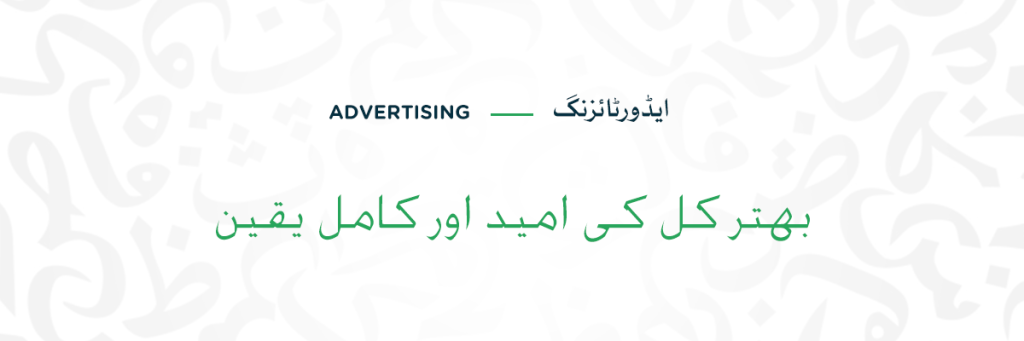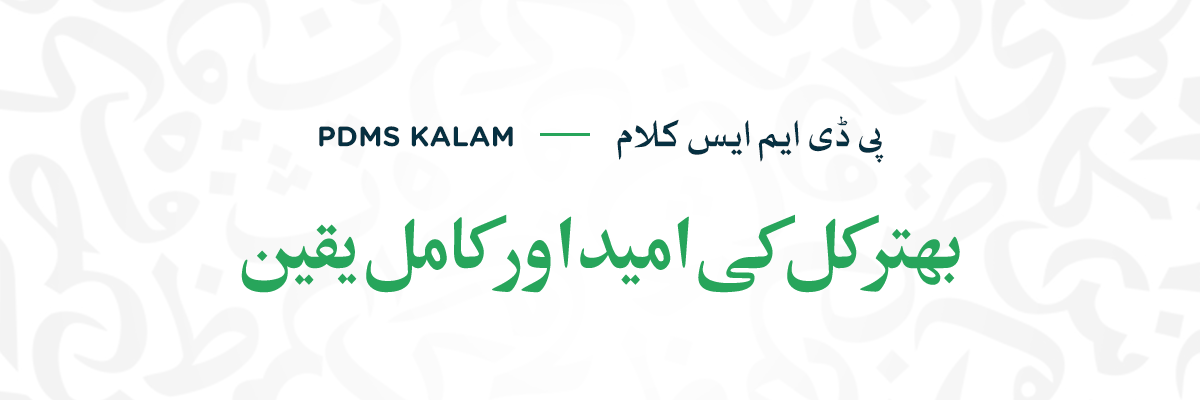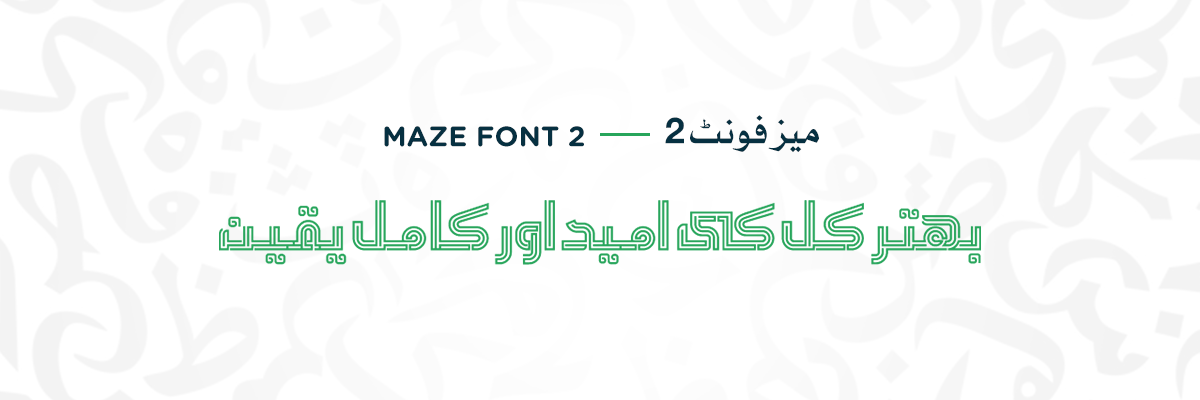
Here we have enlisted the top 10 Urdu fonts for designing eye-catching panaflex banners
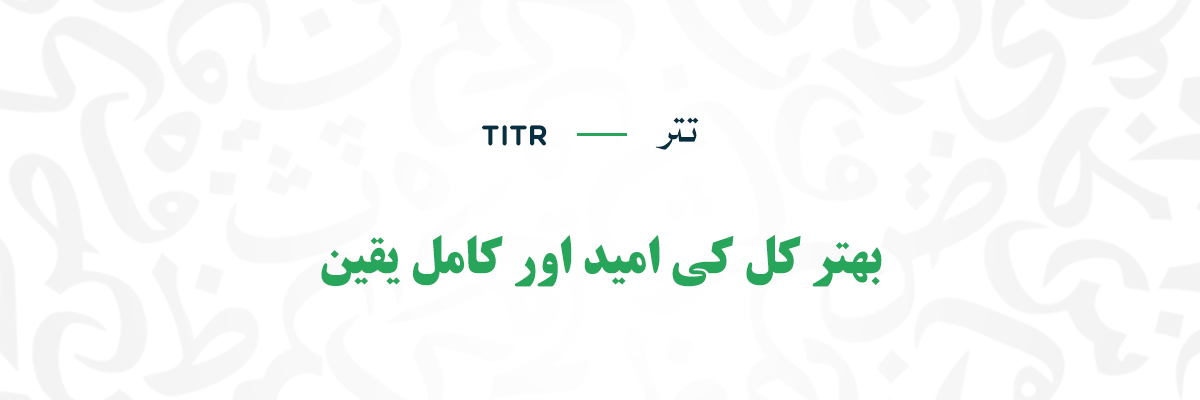
Titr font has clean, bold, and modern appearance. It is highly readable from a distance and is a popular choice in Urdu design. The structure of Titr is straightforward, with strong and thick strokes that give it a powerful look. The letters are evenly spaces and makes text smooth and pleasant. This font is available in two weights including regular and bold. Titr, being a geometric and sans-serif font has 458 number of glyphs and character set of 764. All these factors showcase its versatility. You can use it for advertising special events, panaflex banners, and more where readability and emphasis are essential.
| Font Family | Titr |
| Font Developer | Kostas Bartsokas |
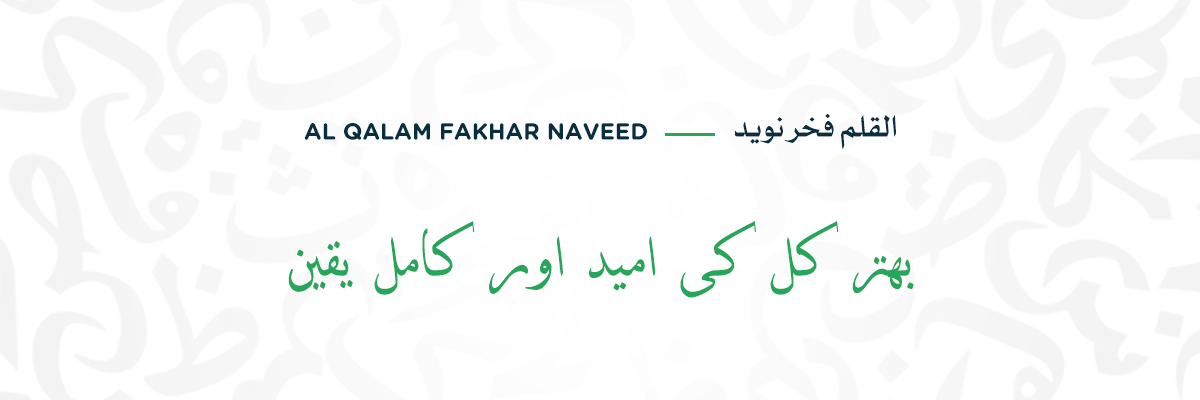
The Al Qalam Fakhar Naveed font is a beautifully crafted Urdu font that is widely appreciated in design. This font has a traditional and elegant look. It captures the beauty of Urdu calligraphy while ensuring readability, even at larger sizes. Each well-proportioned letter in this font is designed to flow gracefully. This modern and flowy Nastaleeq font has lesser number of embellishments, that creates a balanced look. This combination of elegance and clarity gives the font a timeless look. Al Qalam Fakhar Naveed has 334 number of glyphs in total, that can be customized to give font a balanced look, making it suitable for formal and cultural designs.
| Font Family | AlQalam Fakhar Naveed |
| Font Developer | Syed Shakir Ul Qadree |
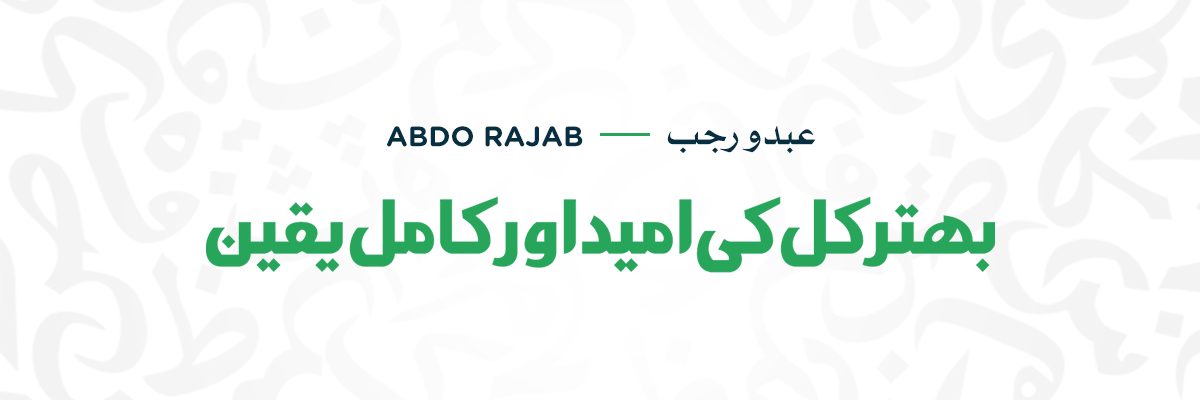
The Abdo Rajab Arabic typeface has a bold and impactful appearance that can grab attention effectively. It is modern as well as traditional at the same time. Available in 3 different weights, including bold, black, and light, it has 315 number of glyphs. Abdo Rajab has thick, bold, geometric, and modern letters that make it visually strong and easy to read. The font weights and styles emphasize clarity, that gives it a modern but traditional look. The letters have distinct shapes, making each word standout without losing readability. Its design makes it ideal for banners that are meant to deliver a message powerfully and confidently.
| Font Family | Abdo Rajab |
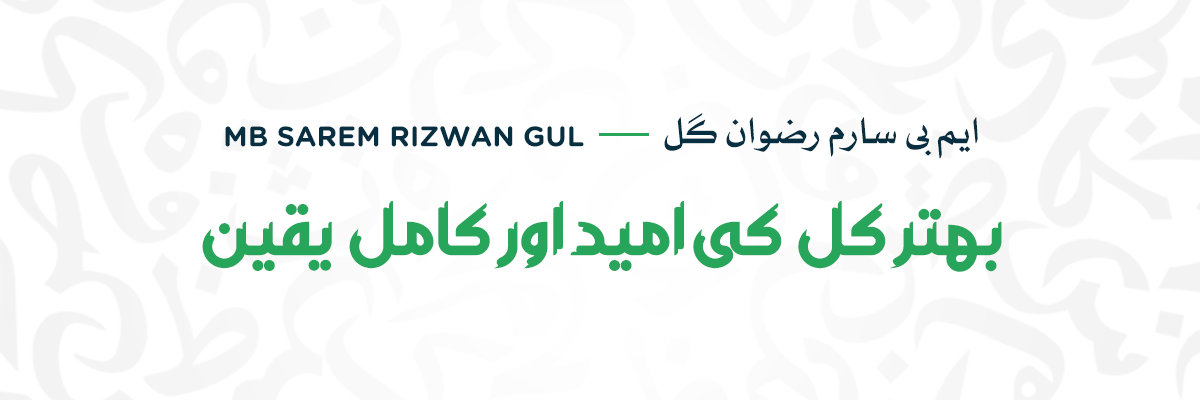
MD Sarim Rizwan Gul is a Sindhi font combines thick strokes with clear shapes that make the letters stand out effectively. It has a rounded and slightly decorative appearance, with thick and balanced letters that give the font a solid yet elegant look. Its ink style strokes and filled characters are readable, even from a distance. MB Sarim Rizwan Gul, being a cartoonish font has 612 number of glyphs and an extensive word count. is highly suited for panaflex banners due to its bold and prominent appearance. It ensures that the message on the banner is easily readable in crowded or open spaces. Its solid structure and bold design are well-suited for outdoor advertising.
| Font Family | MB Sarem Rizwan Gul |
| Font Developer | Sanaullah Mangnejo Sarem |
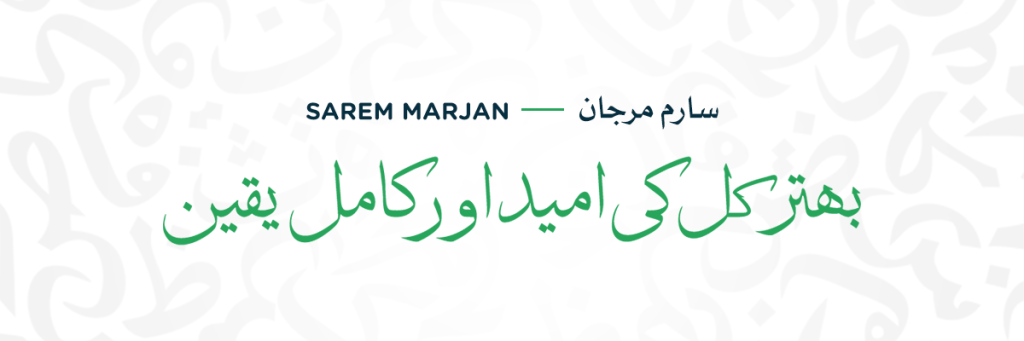
Samer Marjan is a monospaced and elegant Sindhi font that has slightly crisp edges. It has a unique flow to its characters with a softer and more traditional look. Sarem Marjan has a slender and slightly curved appearance. With the glyph count of 400, each character is designed with thin strokes that gives font a delicate and graceful look. The letters are spaced well, with a focus on flowing shapes that makes the text appear smooth and visually appealing. You can use it where a traditional and formal look is desired. Its traditional style also makes it stand out. It offers a unique look compared to more modern fonts, making it a great choice for projects that require an aesthetic connection to Urdu literature and culture.
| Font Family | Sarem Marjan |
| Font Developer | Ayesha Graphics |
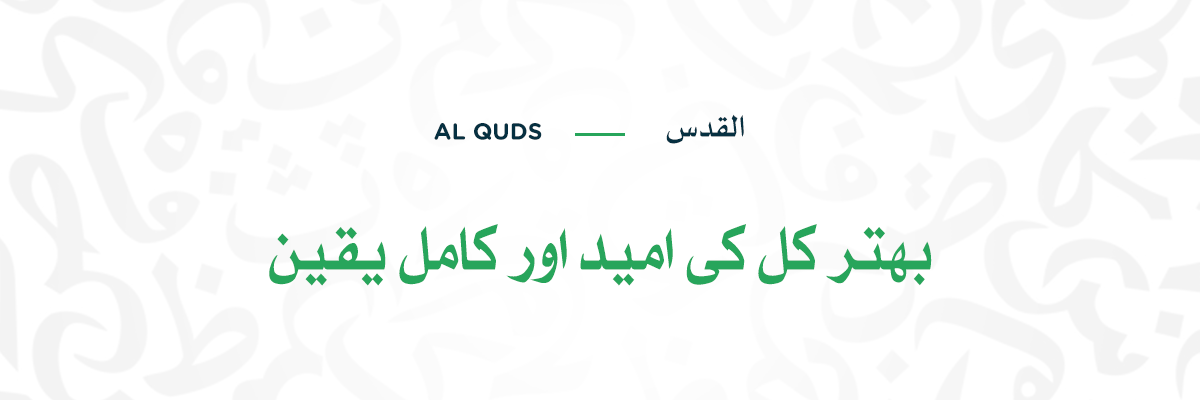
Al Quds is a beautiful and elegant Arabic font. It features graceful curves and intricate details. It gives a calligraphic feel to the visuals. The letters are well-proportioned and have a distinct personality. Each character has a unique shape and flow, which adds to its visual appeal. Al Quds is known for its sharp angles and straight lines. It creates a sense of strength and clarity. The letters are well-proportioned and have a consistent width. Al Quds’s modern interpretation of the Kufi style adds a contemporary touch to traditional Arabic typography. This makes it suitable for a wide range of design projects, from traditional Islamic art to modern branding and advertising. It has 456 glyphs and 537 number of characters.
| Font Family | AL Quds |
| Font Developer | ZakDesign |
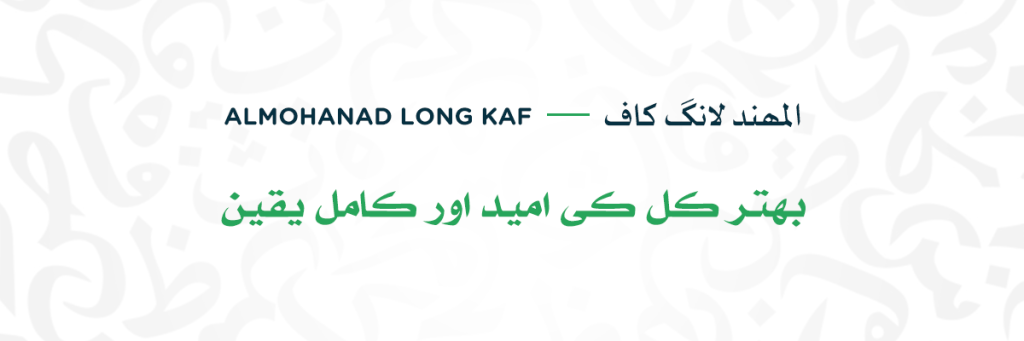
This font is characterized by its elongated “Kaf” letter, which is a distinctive feature of the Al Mohad family. The letters have a modern and geometric structure, with clean lines and sharp angles. The bold and clear forms of the font make it highly legible, even from a distance. The font’s modern and geometric style can add a touch of sophistication and contemporary touch. The font supports a wide range of Arabic characters, including diacritics and ligatures, making it suitable for various texts. Almohanad long Kaf has 10996 number of glyphs.
| Font Family | Almohanad Long Kaf |
| Font Developer | FONTRIX |
Each font has qualities that make it suitable for different purposes. When designing your banner, think about the message you want to send and the people you’re trying to reach. If you want a modern look, choose a cleaner, more straightforward font. For a traditional touch, go with a font that has a classic and flowing design. With the right choice, your banner can make a lasting impression and deliver your message beautifully.